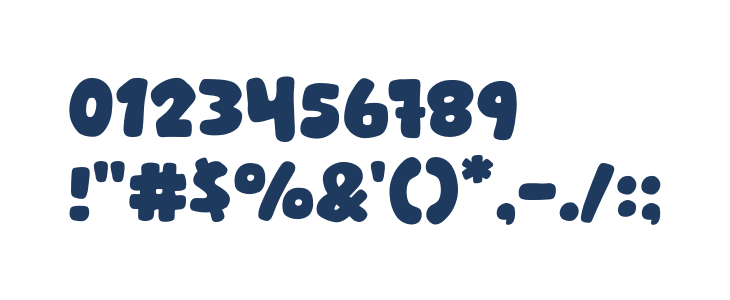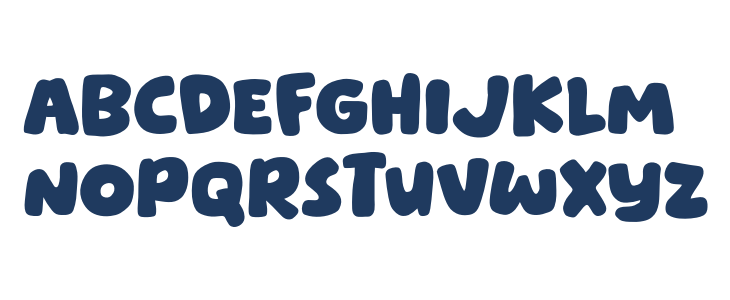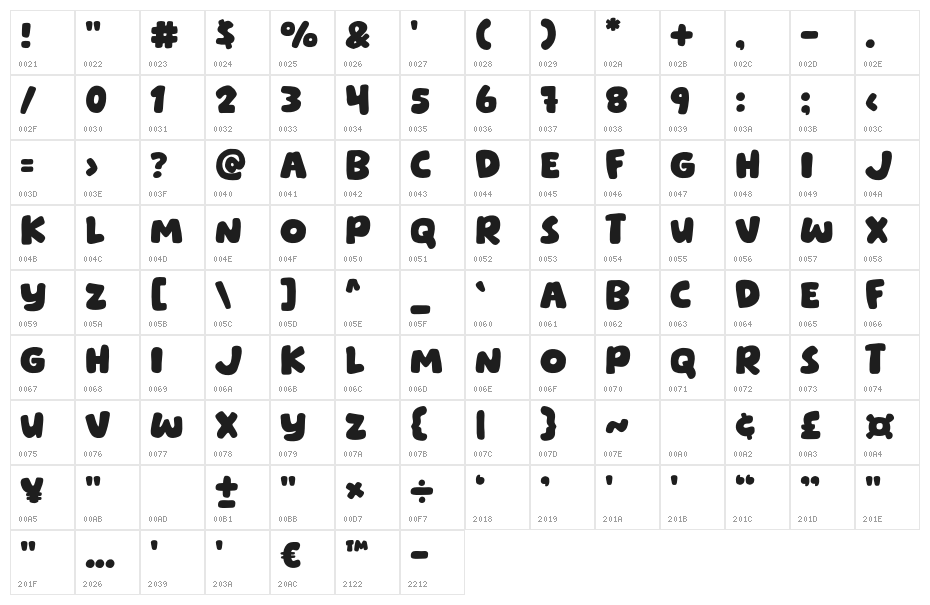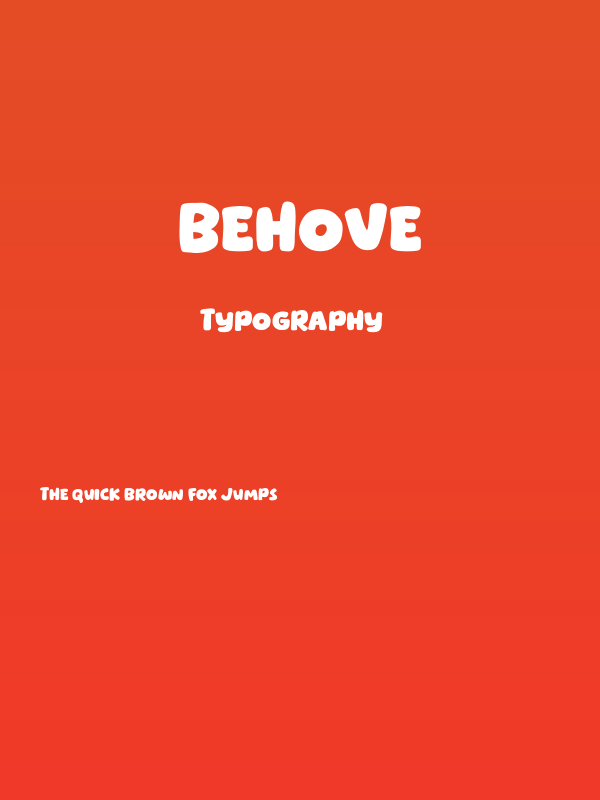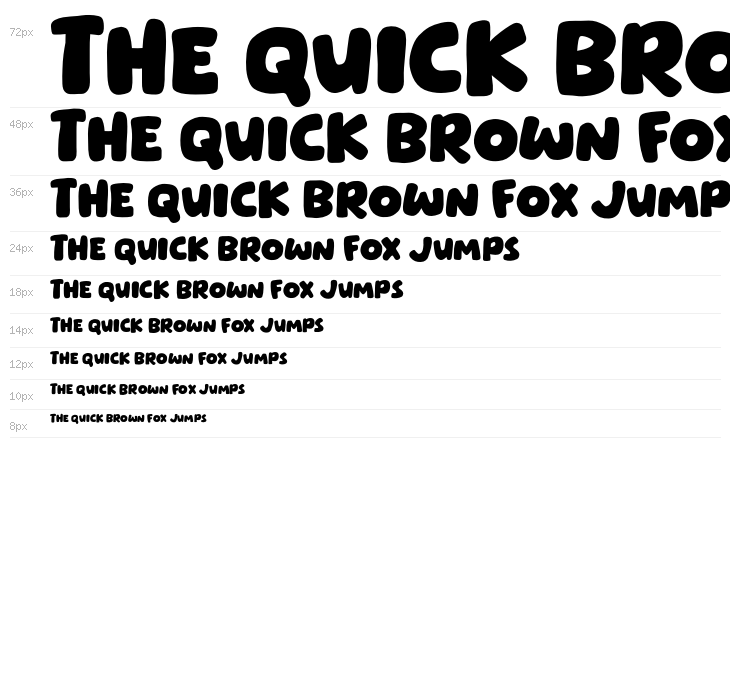
Behove Font
Behove Description
A playful, bold, rounded sans-serif font with thick strokes and a hand-drawn, cartoon-like appearance. The characters are wide and have soft, organic edges, giving a friendly and informal feel.
| Width | Expanded |
| Overall Style | Playful, Decorative, Informal |
| Use Case | Headlines, Logos, Posters, ChildrenΓ’β¬β’s materials |
| Proposed Projects | ChildrenΓ’β¬β’s books, comic titles, playful branding, posters, party invitations, educational materials. |